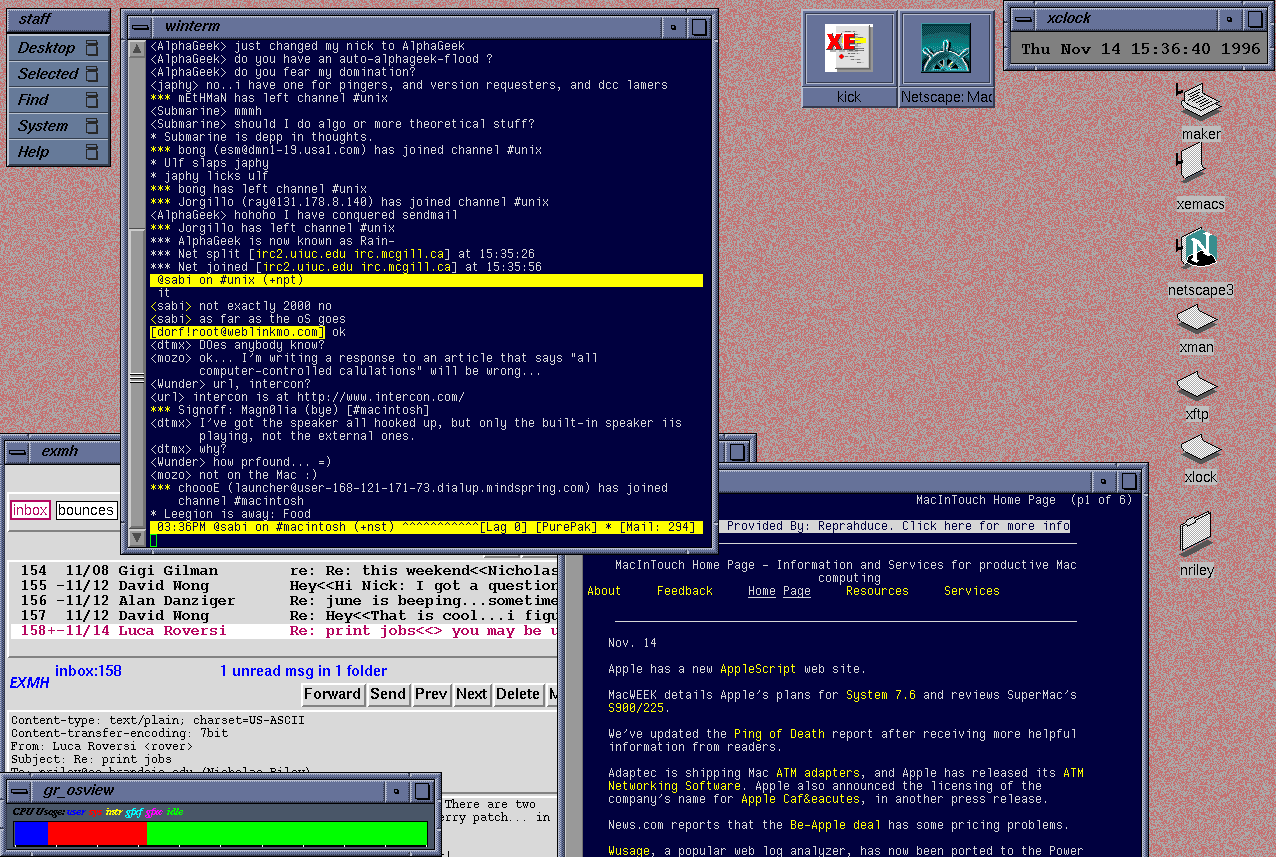
SARRRRR BITMAP FONTS ARE NOT ALLOWED ON KITTY SARRRR SAAARRRRRR!!!!!
i will never understand people who are butthurt that bitmap fonts exist
bitmap fonts are the only way on linux to have nice looking text
Actually based. Bitmap fonts are eye bleeding ricer faggotry
>>108790424>good free bitmap fontare these mongs too poor to pirate? also in what situation is a smudgy font enough of an issue to go online and get your ass reamed by an indian
>>108791141Too bad they're all way too small. Call me when there's good bitmap fonts that work with font sizes above 20. I'm not on a 1995 CRT with 15" screen.
>>108790467Calibre was fine until he decided to add a Slop engine to it.>>108790424>Dragging out nearly a decade old github request dramaAt least make this thread about the shit nature of Calibre now, Jesus.>>108790471Now scroll lower.>Actually, I won't accept it now because you're continuing to push this and hurt my feels saying my GLORIOUS NON-BITMAP FONT looks like shit.
>>108790424>i have autism and get angered by unsharp letters on the computer